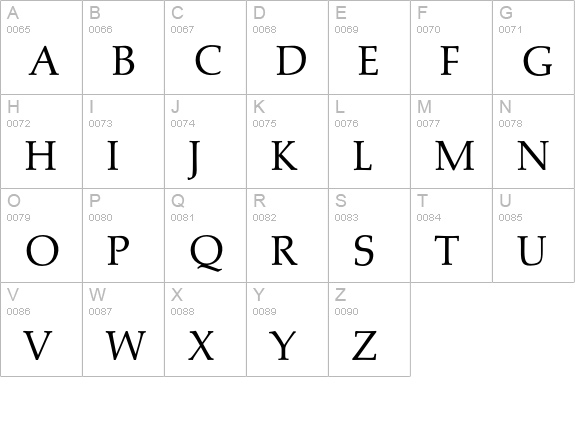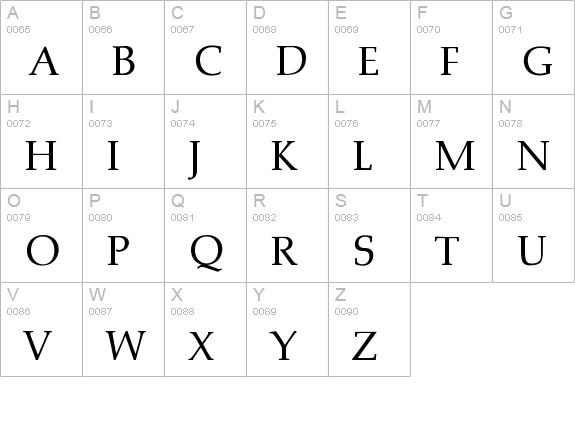
Marath-Regular Font Details
Marath-Regular is the standard, neutral variant in the Marath typeface family \xE2\x80\x94 well suited to general body text, paragraphs, and standard typographic work.
Marath-Regular is a stunningly elegant font that effortlessly blends sophistication and modernity. Its sleek and streamlined letterforms exude a timeless beauty that captures attention and conveys a sense of professionalism. With its meticulously crafted design, Marath-Regular is perfect for a wide range of creative projects, from branding and advertising to editorial and website design. This versatile font offers a harmonious balance between traditional and contemporary influences, making it suitable for both formal and informal applications. Its clean lines and well-proportioned letters ensure optimum legibility, making it a reliable choice for any project that requires clear and concise communication. One of the most remarkable aspects of Marath-Regular is that it is freely available to download at FontsMarket.com. This means that designers and creatives can easily access and utilize this exceptional font without any financial constraints. Whether you're a student, freelancer, or professional, the accessibility of Marath-Regular allows you to add a touch of elegance and refinement to your designs without breaking the bank. With Marath-Regular, you can effortlessly elevate your designs and create a lasting impression. Its versatility, elegance, and availability make it a must-have font for anyone seeking to enhance their creative endeavors. Experience the beauty and practicality of Marath-Regular by downloading it for free at FontsMarket.com today.